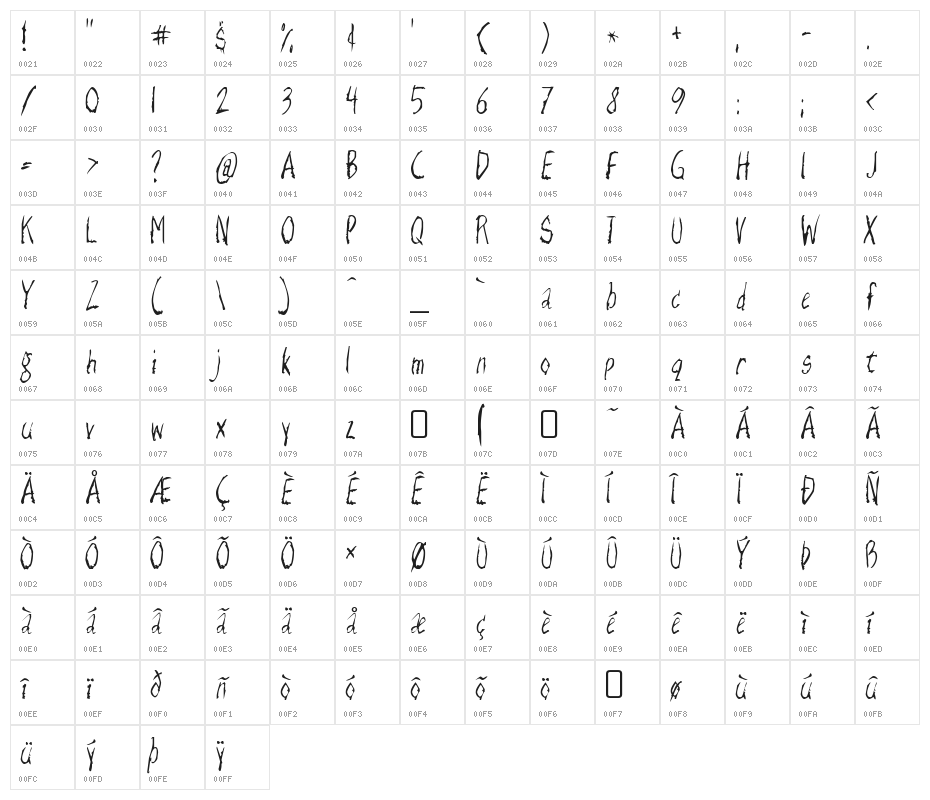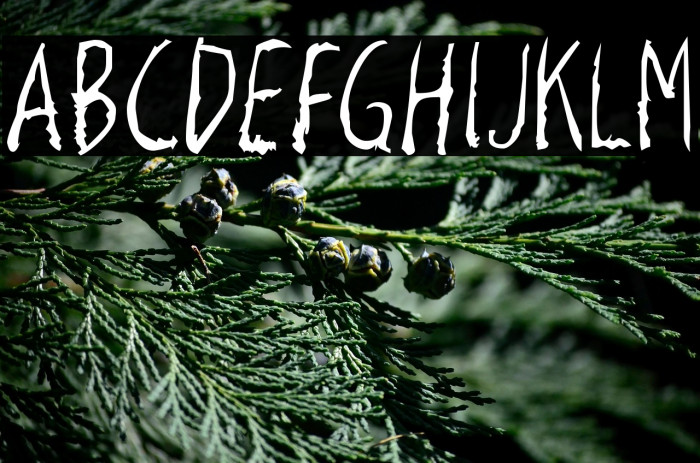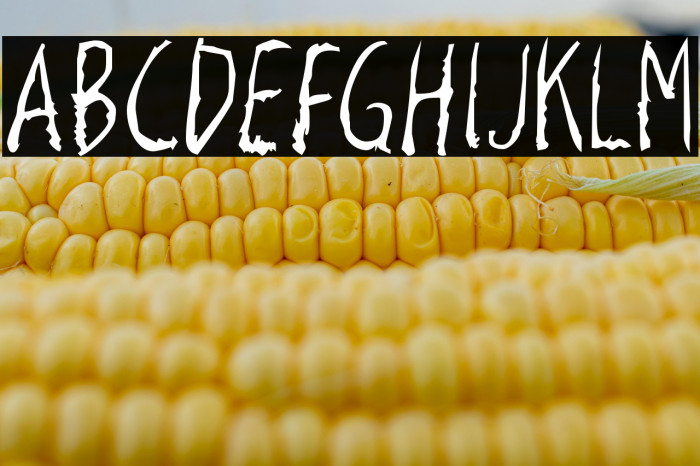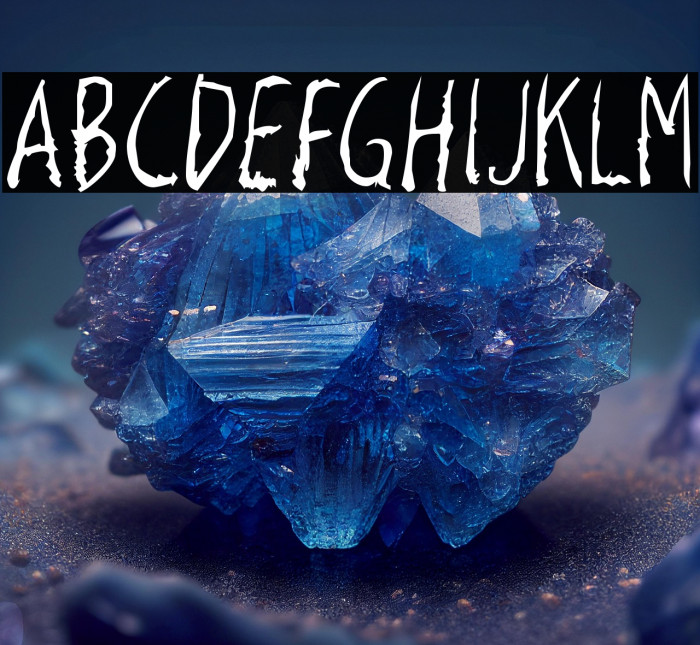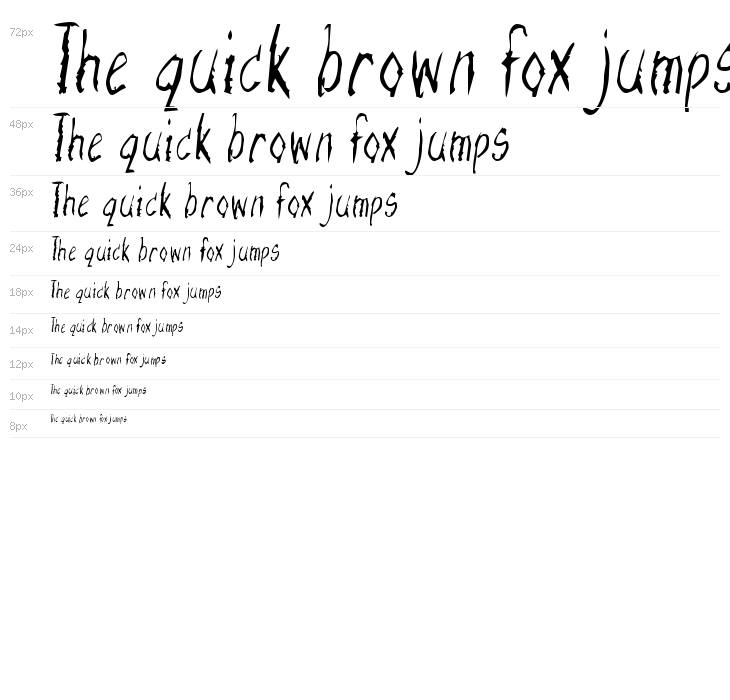
RazorKeen-Regular Font
RazorKeen-Regular Description
This font features a sharp, edgy design with irregular, jagged strokes that give it a raw and dynamic appearance. The characters are slightly distorted, creating a sense of movement and energy. The uppercase and lowercase letters maintain a consistent style, with varying stroke thickness that adds to the font's unique character. The numbers and special characters follow the same aesthetic, ensuring a cohesive look across all glyphs. This font is ideal for projects that require a bold, unconventional style, making it perfect for creative and artistic endeavors.
| Proposed Projects | Ideal for album covers, posters, and edgy branding projects. |